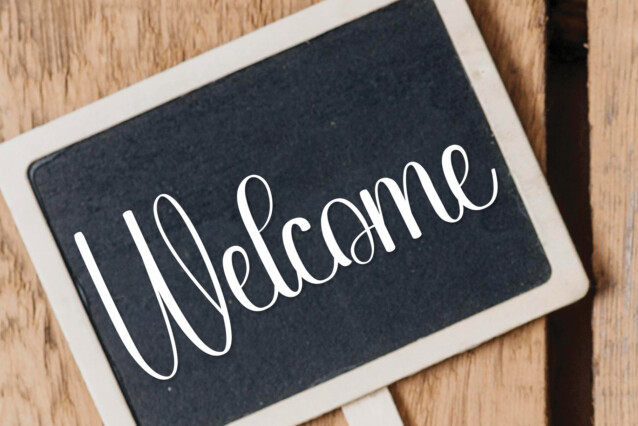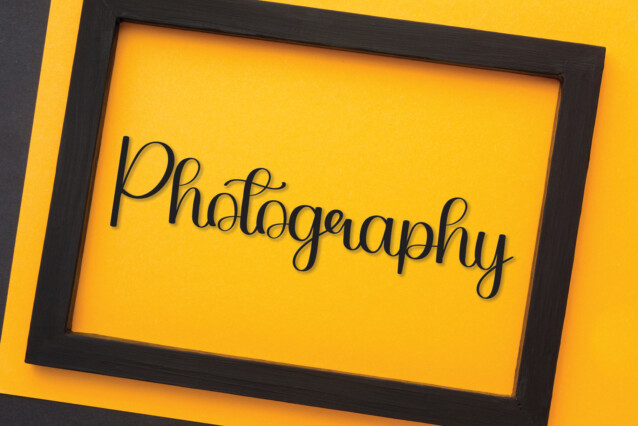
The Farmhouse Script Font
The Farmhouse Script Font is a romantic and sweet calligraphy typeface with characters that dance along the baseline. It will add a luxury spark to any design project that you wish to create!